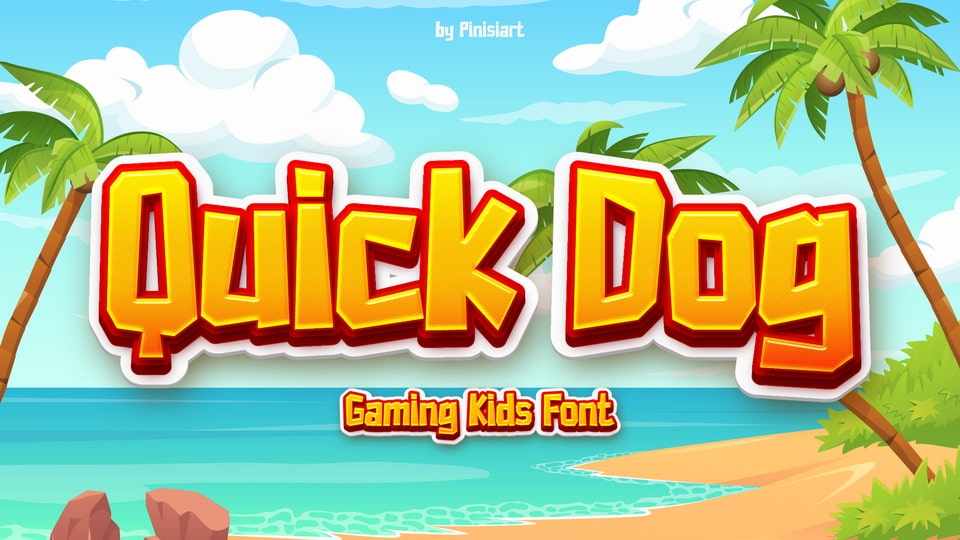
Download Quick Dog font, a gaming kids typeface. Summer breeze and the beach. This font will make your event poster pop up and grab people’s attention in no time.